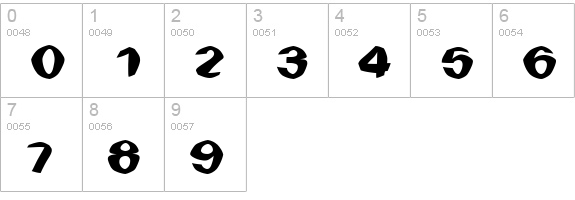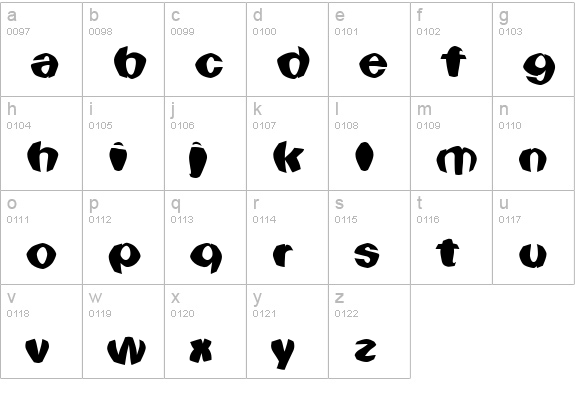
Bulge Font Details
Bulge font is a unique and eye-catching typeface that exudes a sense of fun and playfulness. Its rounded, bubbly shapes give off a cheerful and inviting vibe, making it perfect for designs that aim to grab attention and add a touch of whimsy. The bold and striking appearance of Bulge font makes it ideal for headlines, logos, posters, and other display purposes where you want to make a statement. And the best part? Bulge font is completely free to download at FontsMarket.com! This means you can easily add this delightful font to your collection without any cost, allowing you to unleash your creativity without breaking the bank. Whether you're working on a personal project or a client's design, Bulge font is sure to bring a pop of personality and charm to your work. Download it today and let your imagination soar with this playful and lively typeface.